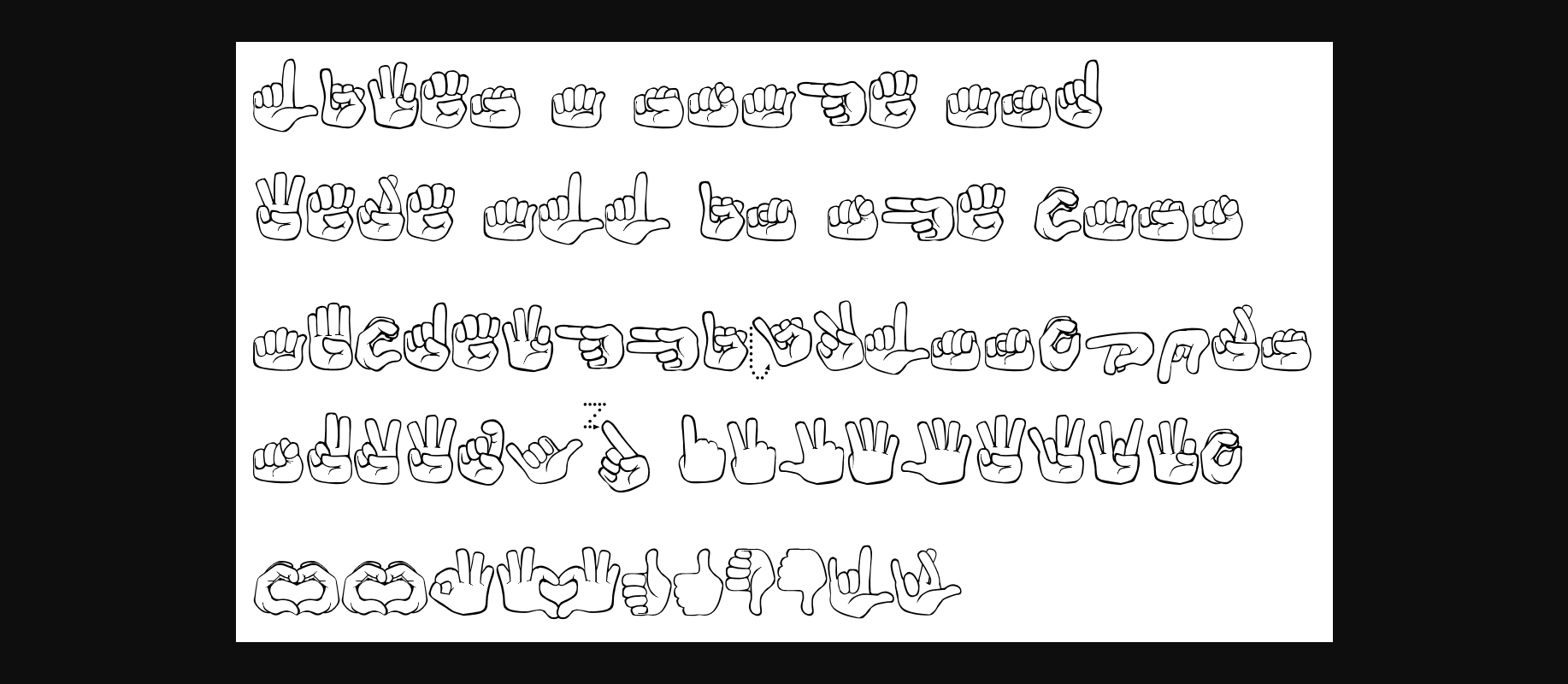
HomeDecorative FontsFingerspelling Font Decorative Fonts Fingerspelling Font FacebookXPinterestWhatsApp 1 of 1 About Fingerspelling Font Based on American Sign Language, the full alphabet, numbers 0-9 and several other signs. DOWNLOAD NOW People also explored Virginia Font Gradness Font Maltes Font Tingler Duo Font Ambersal Moment Font Antallya Font Sophistik Sans Font Adelberti Font Milk Font 477 0 TagsFingerspelling Font Previous articleLove Song FontNext articlePicksuhl Font LEAVE A REPLY Cancel reply Comment: Please enter your comment! Name:* Please enter your name here Email:* You have entered an incorrect email address! Please enter your email address here Website: Save my name, email, and website in this browser for the next time I comment. Personal Use Free Burnstown Dam Personal Use Free Read more about this font Wordan Personal Use Free Read more about this font Daisy Script Personal Use Free Read more about this font Kredit Personal Use Free Read more about this font BLOG Free vs Paid Fonts: Why Investing in Premium Fonts Is Worth It Free vs Paid Fonts: Why Premium Fonts Are Worth It in 2025 The debate of free vs paid fonts continues in the design world. While... Free Fonts Risk: Why Free Fonts Can Be Dangerous for Designers How to Install and Use Fonts on Windows, macOS, and Web Projects Where to Buy American Fonts Online in 2024